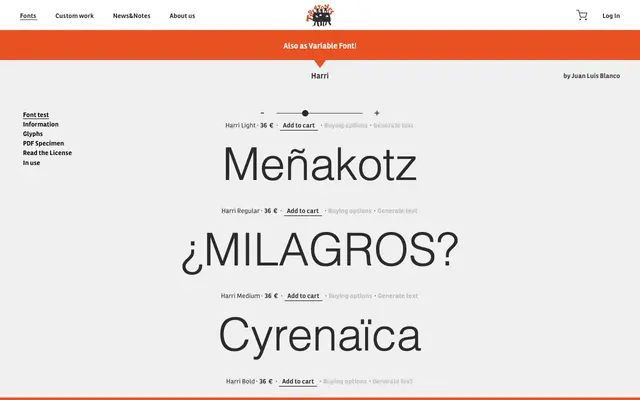
Harri
A grotesque sans by Juan Luis Blanco offered in five weights across standard and condensed widths, with a variable font option.
Designed by Juan Luis Blanco and published by Type-ø-tones, Harri runs from Light to ExtraBold in both upright and condensed cuts, giving ten static styles in total. A variable font version covers the full weight axis in a single file. The specimen words draw on place names and terms from a range of languages, pointing to broad Latin character support.
The weight range, condensed variants, and specimen words suggest a workhorse grotesque sans with broad language coverage; the clean naming convention and variable font offering align with a contemporary grotesque tradition.